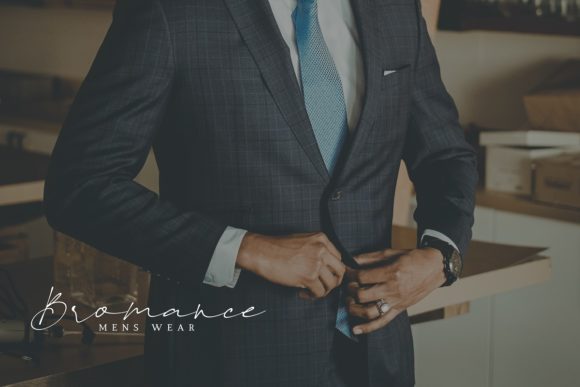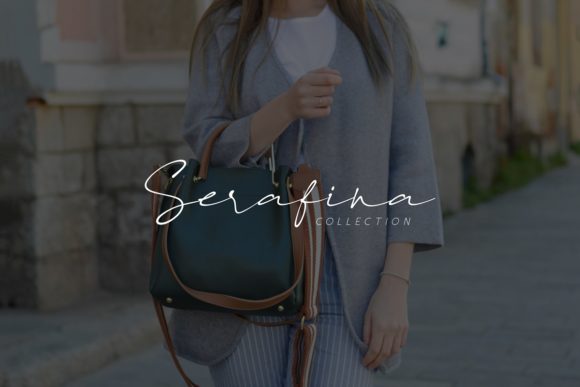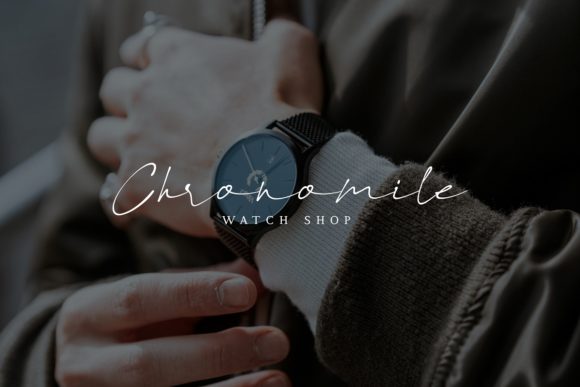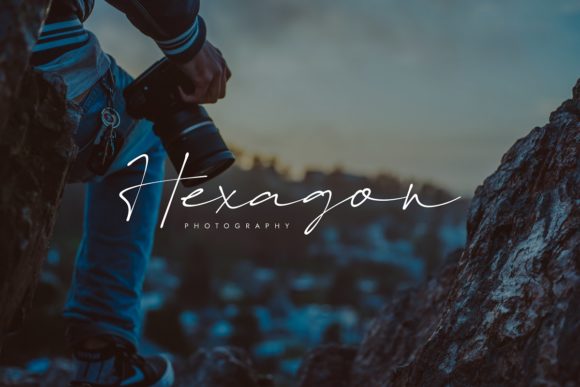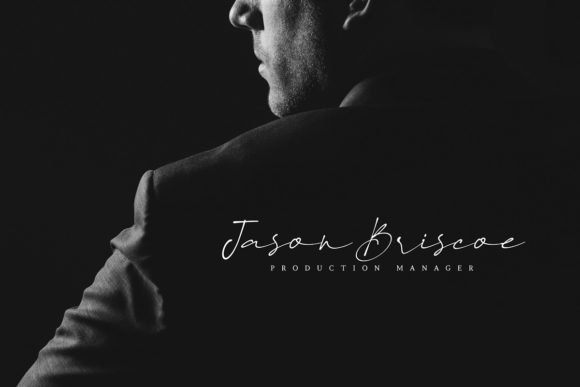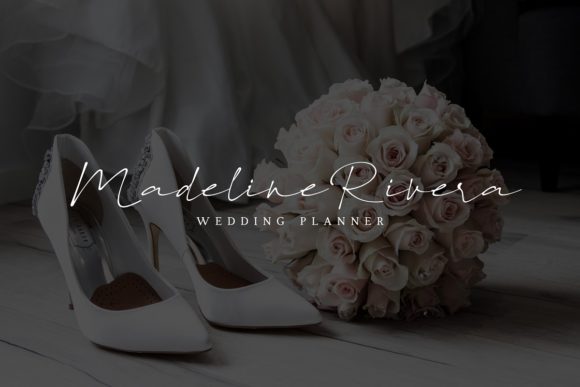
Introduction to Paragon Font
As a designer, you know that finding the perfect font can be a game-changer for your creative project. It’s that moment when everything clicks, and your design goes from good to great. I still remember the thrill of discovering the Paragon Font, a stylish handwritten font that added an authentic vibe to my latest design.
The Paragon Font is more than just a pretty face – it’s a high-quality design resource that’s perfect for adding a touch of elegance to your work. With its transparent background and contemporary feel, it’s a versatile choice for any design project. Whether you’re working on a branding campaign, a marketing brochure, or a social media graphic, the Paragon Font is sure to make your design stand out.
Key Features of Paragon Font
- Unique, modern design with a touch of elegance, making it perfect for use in logos, typography, and other visual elements.
- Designed to be highly legible and versatile, suitable for use in a wide range of creative projects and applications.
Honest Review: Paragon Font
As a designer, I’m always on the lookout for high-quality design resources that can elevate my creative project. Recently, I stumbled upon the Paragon Font, and I’m excited to share my honest review.
What works well: ✨ I love that the Paragon Font is a free download, making it an excellent addition to any designer’s toolkit. The font is well-designed, with a clean and modern aesthetic that’s perfect for a variety of creative projects. The transparent background option is also a great feature, allowing for seamless integration with any design.
What could improve: ⚠️ While the Paragon Font is a solid choice, I did notice that it’s not as versatile as some other fonts I’ve worked with. The font’s design, while beautiful, may not be suitable for all types of creative projects. Additionally, the font’s weight and style options are somewhat limited.
Overall, I think the Paragon Font is a great design resource for designers who need a clean and modern font for their creative project. With its high quality and free download, it’s definitely worth checking out. However, it may not be the best choice for designers who require a more versatile font.
- Well-designed for modern creative projects
To get the most out of the Paragon Font, use it consistently throughout your design to create a cohesive look. Experiment with different font sizes, colors, and styles to find the perfect combination for your creative project.